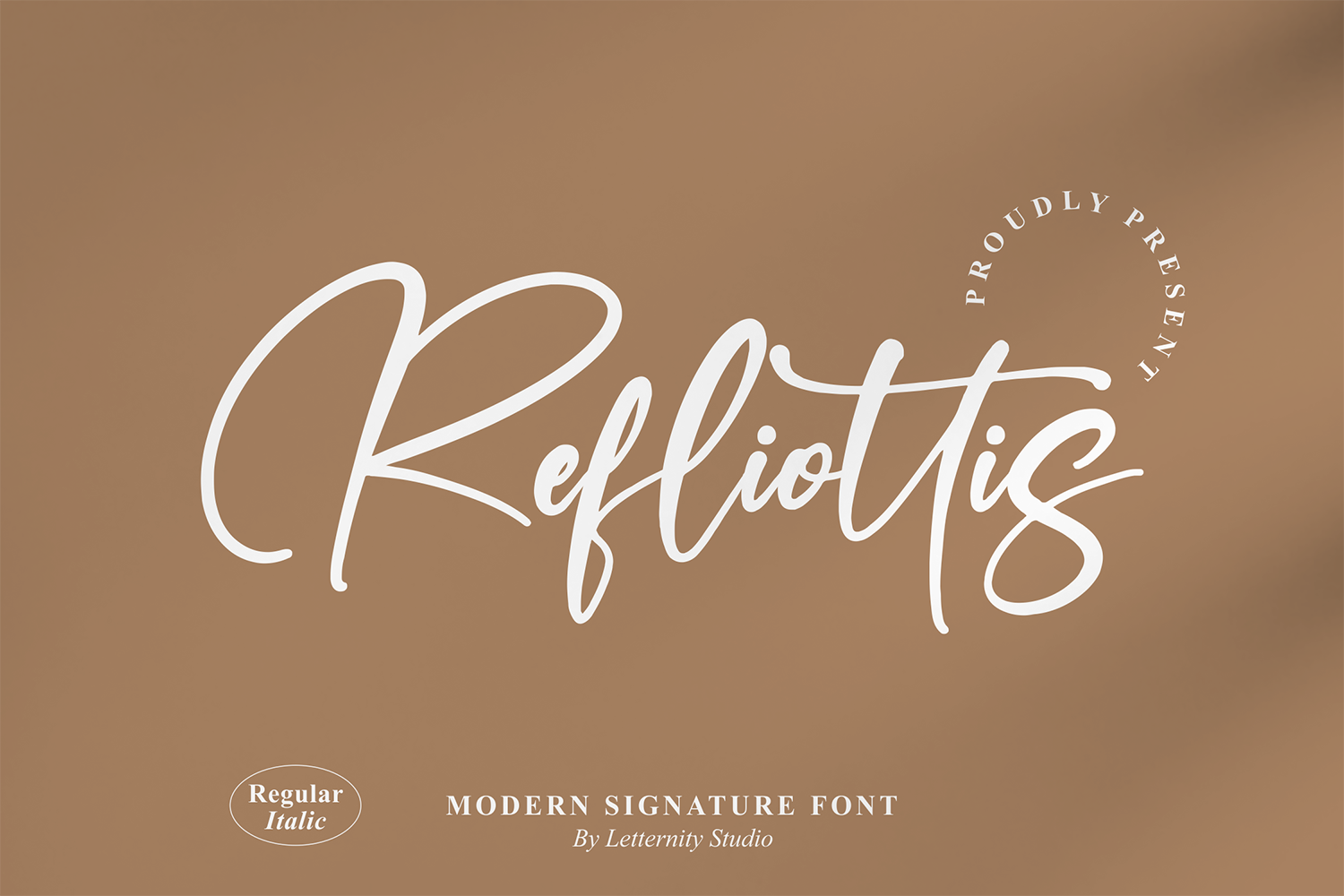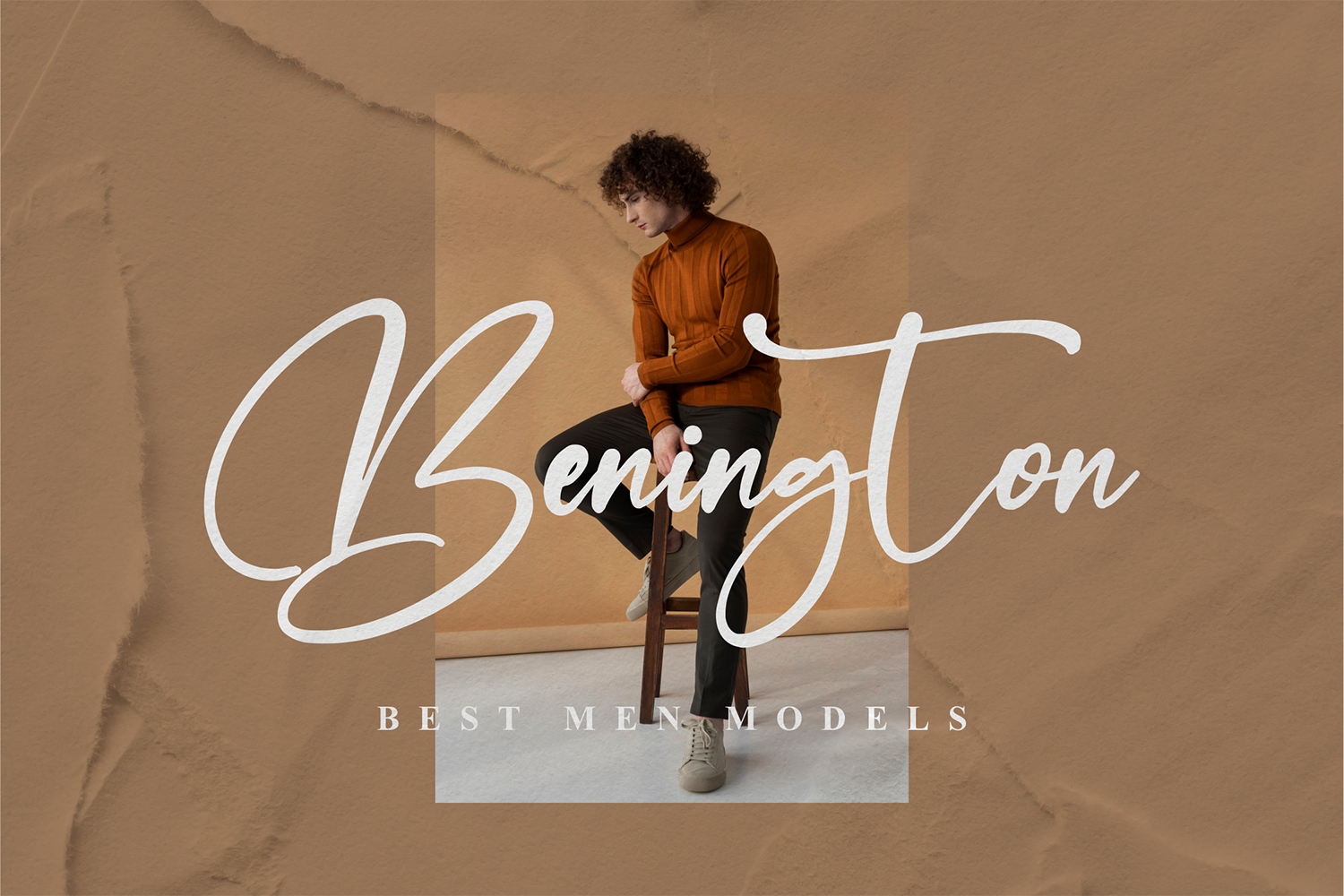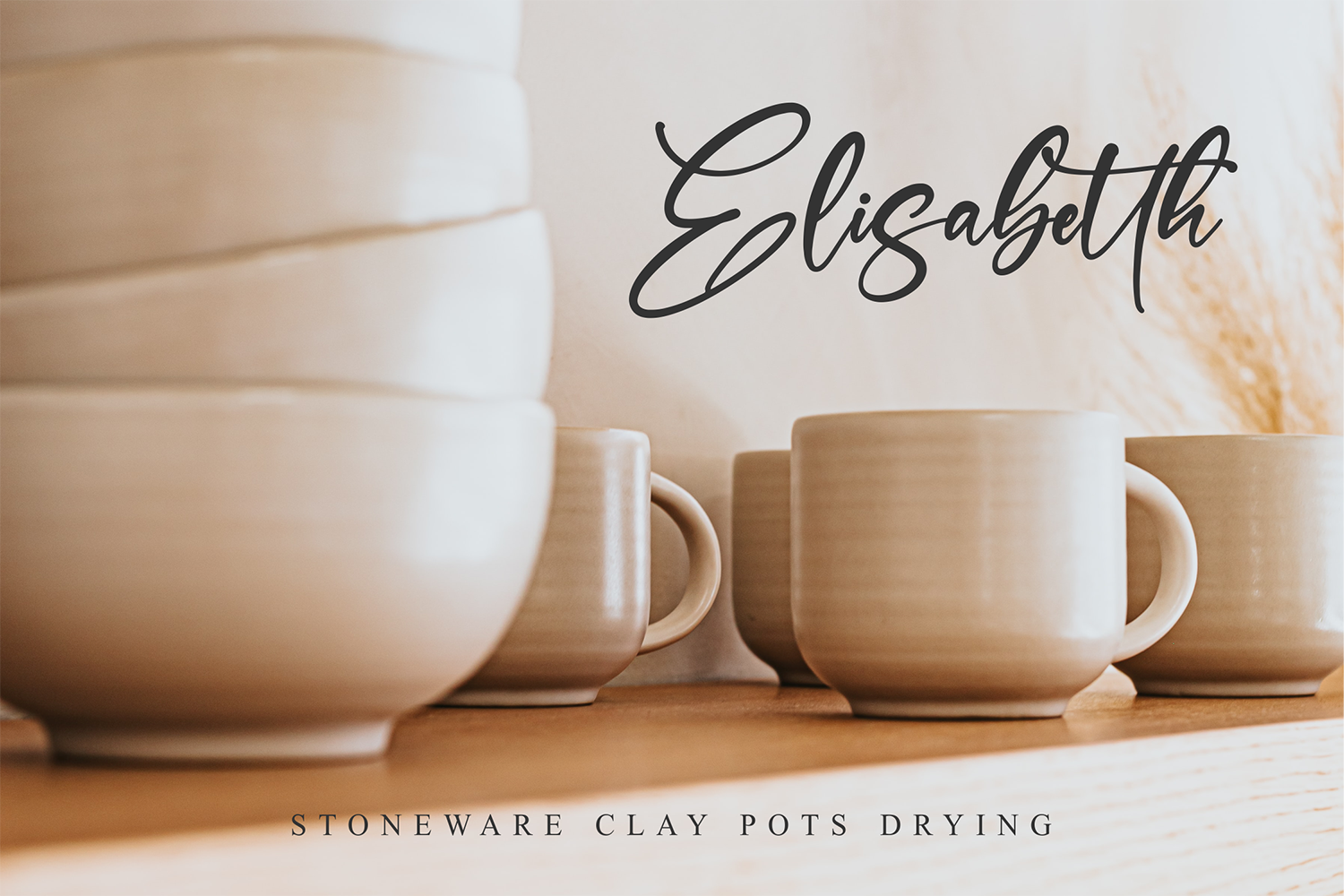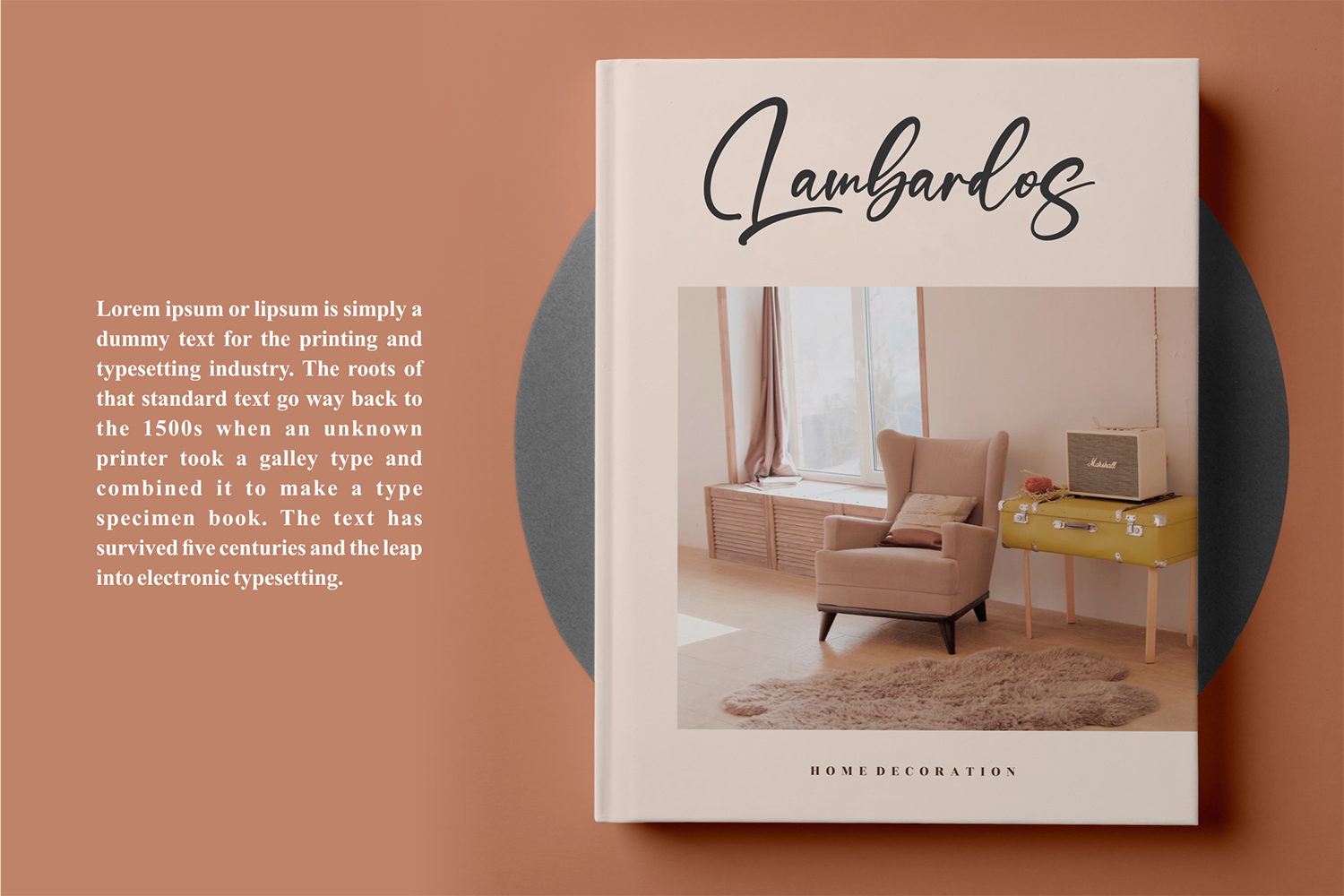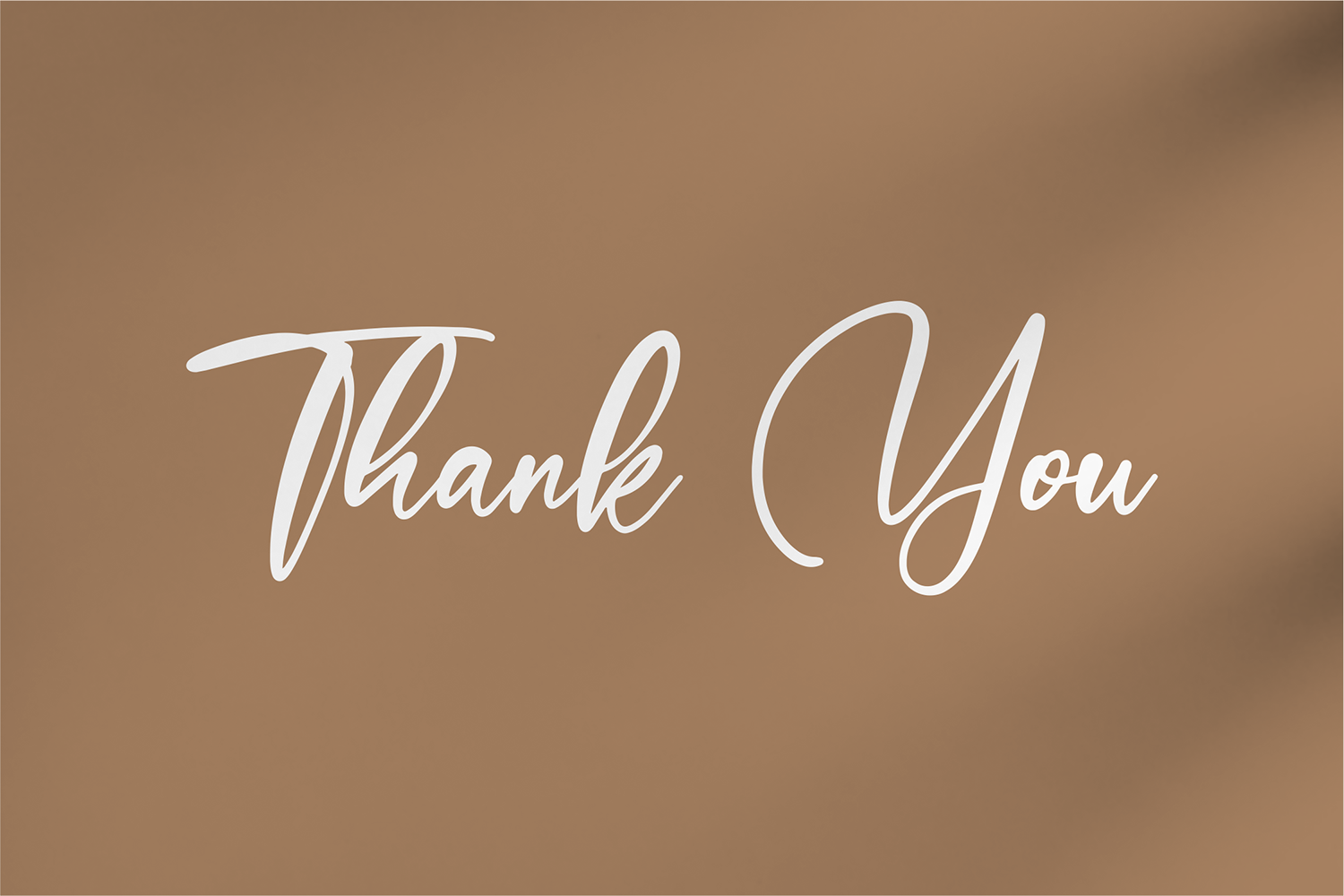
Refliottis Free Font
Refliottis Free Font is a beautiful handwritten font that simulates detailed brush writing and is very suitable for creating various design projects that require a scripted font. These can be posters, invitations, cards, branding, flyer prints, and more. If you wish to access more features and use them for commercial work please buy the full version.
Author: Letternity Studio